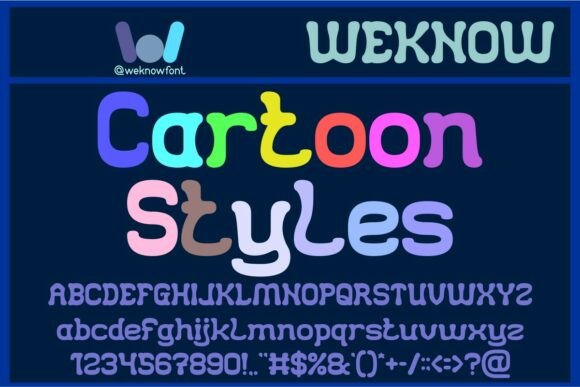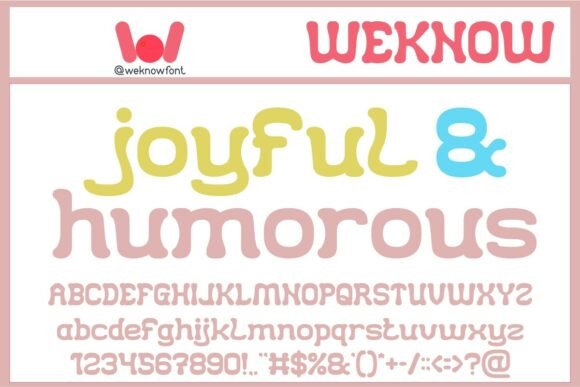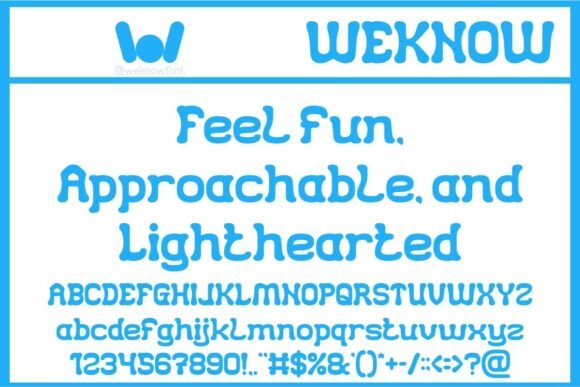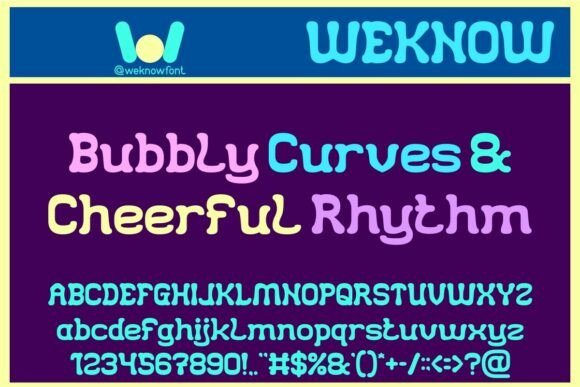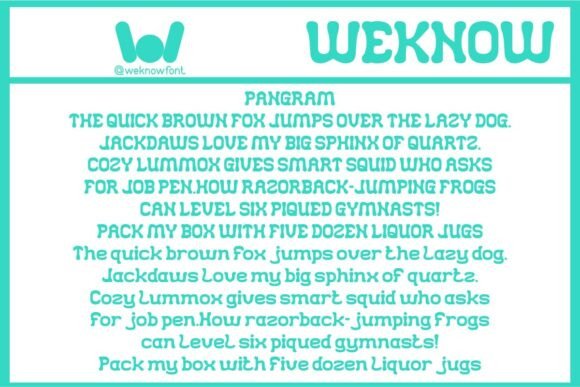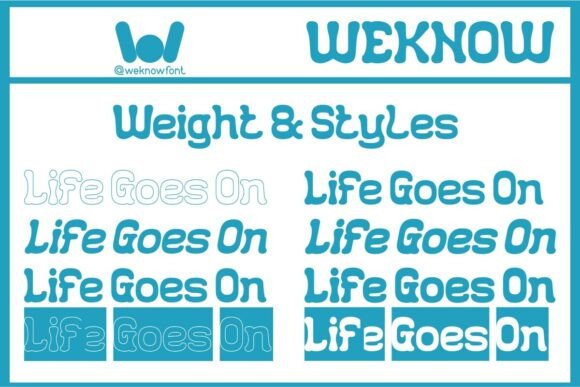
Introduction to Life Goes on Font
Experience the vibrancy of ‘Life Goes On,’ a brilliantly playful and fancy display font.
Tailored to breathe life into logos and add vigor to logotypes, this upbeat font remains a favorite for corporate and brand identity building Pulling off a cheerful and friendly demeanor, it proves perfect for the apparel industry, giving garments a distinct personality.